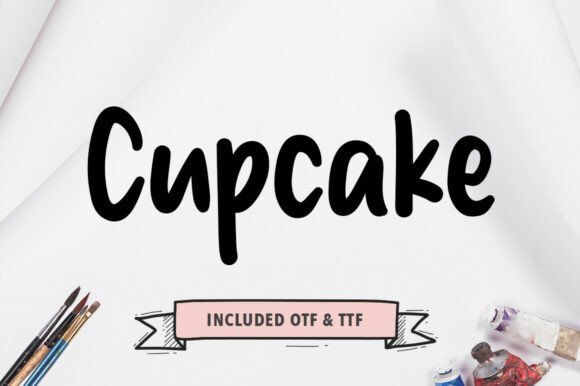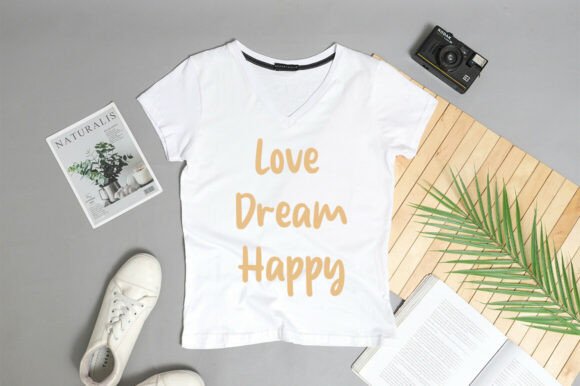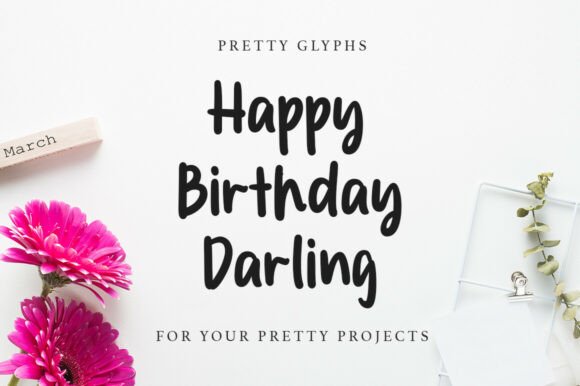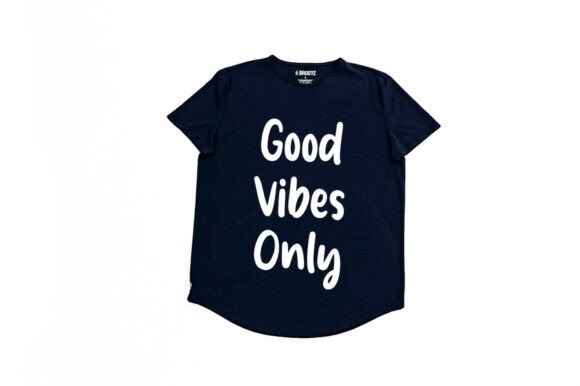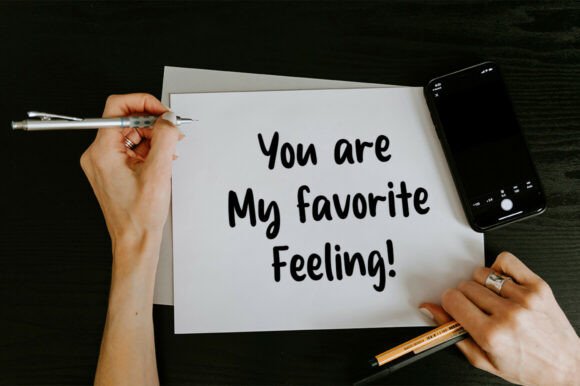
Enter Cupcake Font, a stunning handwritten brush font that’s about to become your new go-to companion. This beautifully crafted font is designed to add a touch of bold personality and authentic vibes to any design, from branding to social content. With its natural strokes, dynamic movement, and handcrafted texture, Cupcake Font is the perfect solution for creatives who want to make a statement and leave a lasting impression.
Cupcake Font Key Features
- Font Family: Cupcake Font is a unique, hand-drawn font family that includes various styles, from casual to elegant.
- Unique Characteristics: Cupcake Font features hand-drawn, cursive-like letterforms with a playful and whimsical feel, making it perfect for creative and artistic projects.
Cupcake Font Review
At first glance, the Cupcake Font is a charming and playful choice for baking-themed projects. ✨ The font’s rounded edges and cursive feel immediately evoke the idea of sweet treats and desserts. It’s perfect for adding a whimsical touch to food labels, packaging, or even advertisements.
- ✨ Playful and Whimsical – The Cupcake Font is perfect for adding a touch of fun and personality to your designs.
- ✨ Highly Customizable – The font is available in various styles and weights, making it easy to find the perfect match for your project.
However, there are some limitations to consider. ⚠️ The font may not be the best choice for formal or professional projects, as its playful nature may come across as unprofessional. Additionally, the font may not be suitable for small font sizes, as the letters can become difficult to read.
Overall, the Cupcake Font is a delightful and charming choice for baking-themed projects. While it may not be suitable for all types of projects, it’s perfect for adding a touch of whimsy and fun to your designs. ⚠️ Just be mindful of the limitations mentioned above.
To get the most out of the Cupcake Font, try combining it with other decorative fonts and using it for titles, headings, and other eye-catching text elements.
The Cupcake Font is ideal for baking-related designs, party invitations, and other sweet-themed projects. It’s also great for adding a playful touch to educational materials, social media graphics, and marketing materials.